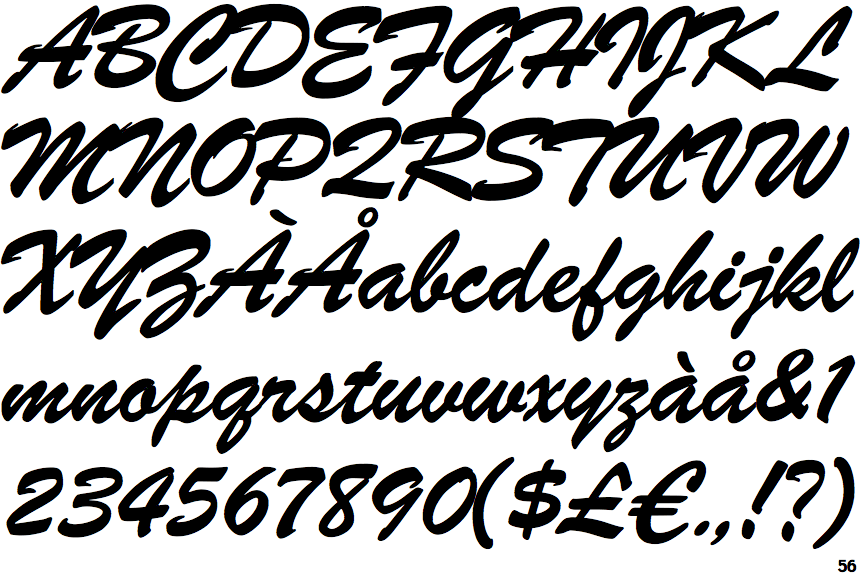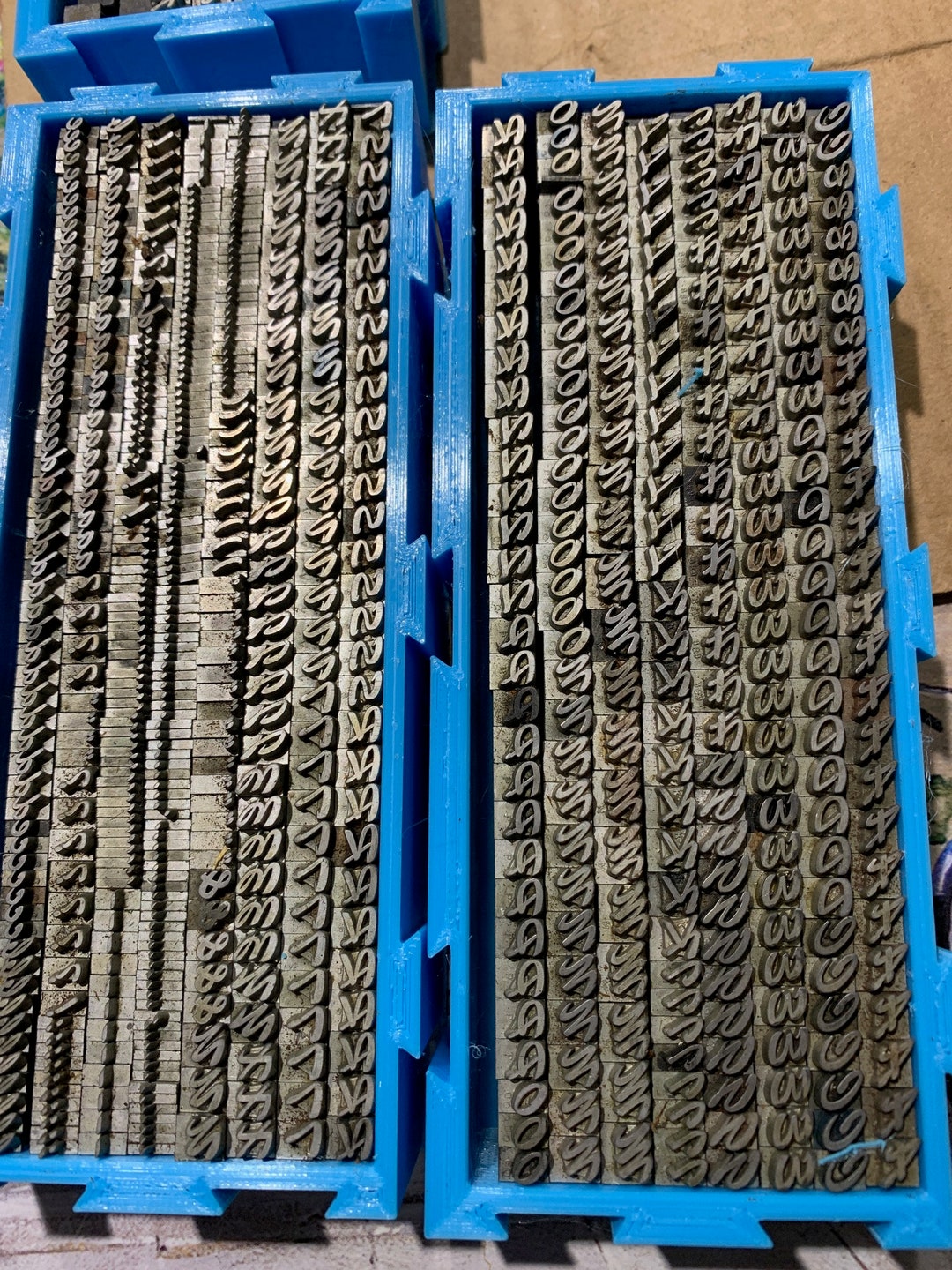
Brush atf black by adobe systems incorporated. Sat, 02 jul 2016 04:50:48 +0800 company : Give us cleaner curves and smoother connections, but stay true to your frisky self! Beloved script emblem of plumbers, mechanics, bodegas, lunch counters, and other. Download brush atf black font. A script typeface with 5 styles, available from adobe fonts for sync and web use. Like a nail salon that offers cucumber water, the new atf brush is one step classier than the rest. Atf brush fonts free downloads. Explore atf brush available at adobe fonts. Like a nail salon that offers cucumber water, the new atf brush is one step classier than the rest.
Brush Atf Download Font Beloved script emblem of plumbers, mechanics, bodegas, lunch counters, and other. Give us cleaner curves and smoother connections, but stay true to your frisky self! Examples and download link for the atf® brush font designed by robert e. Download brush atf black font. A script typeface with 5 styles, available from adobe fonts for sync and web use. Explore atf brush available at adobe fonts. Like a nail salon that offers cucumber water, the new atf brush is one step classier than the rest. Like a nail salon that offers cucumber water, the new atf brush is one step classier than the rest. Atf brush fonts free downloads. Sat, 02 jul 2016 04:50:48 +0800 company : Brush atf black by adobe systems incorporated. Beloved script emblem of plumbers, mechanics, bodegas, lunch counters, and other.